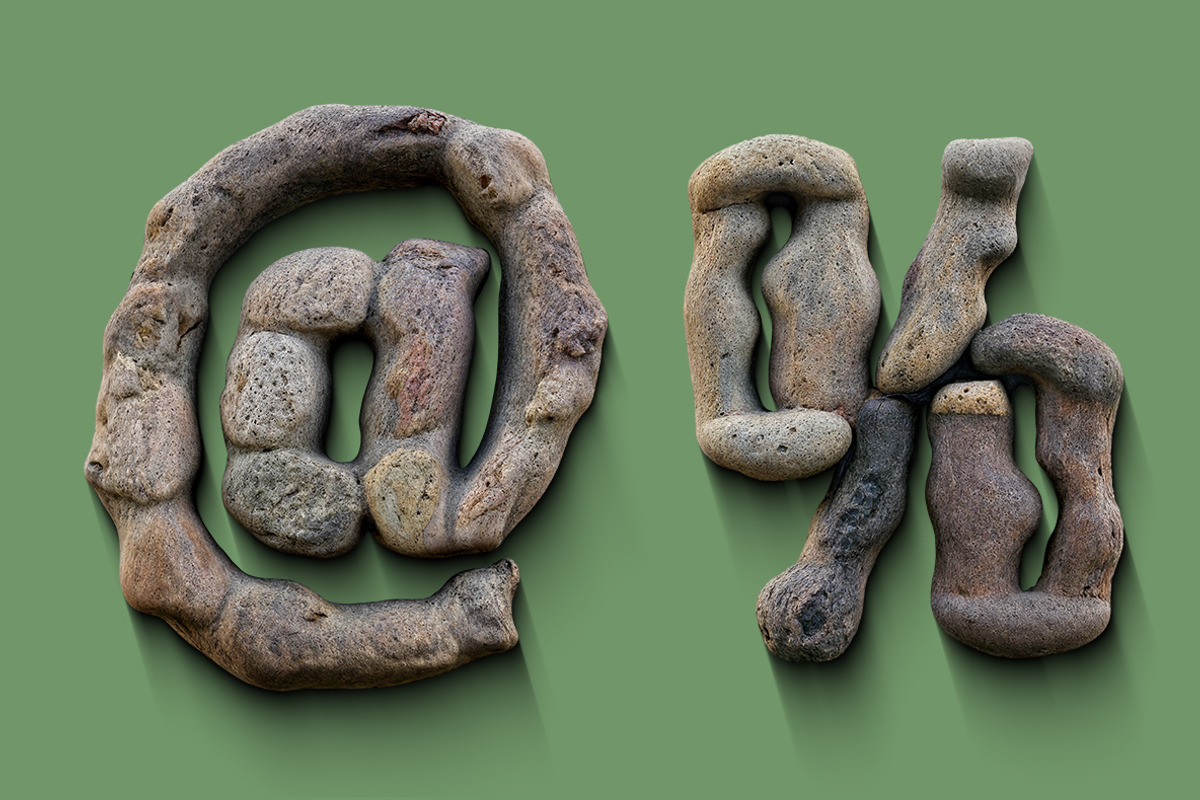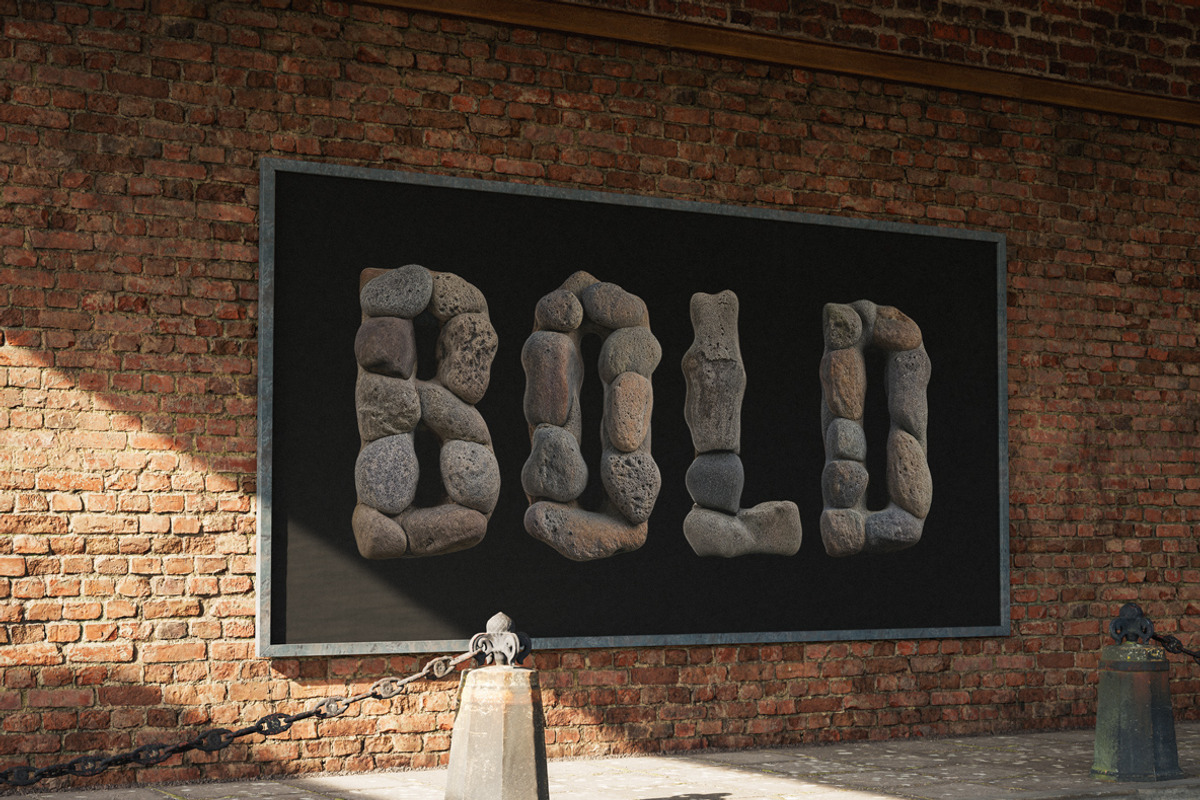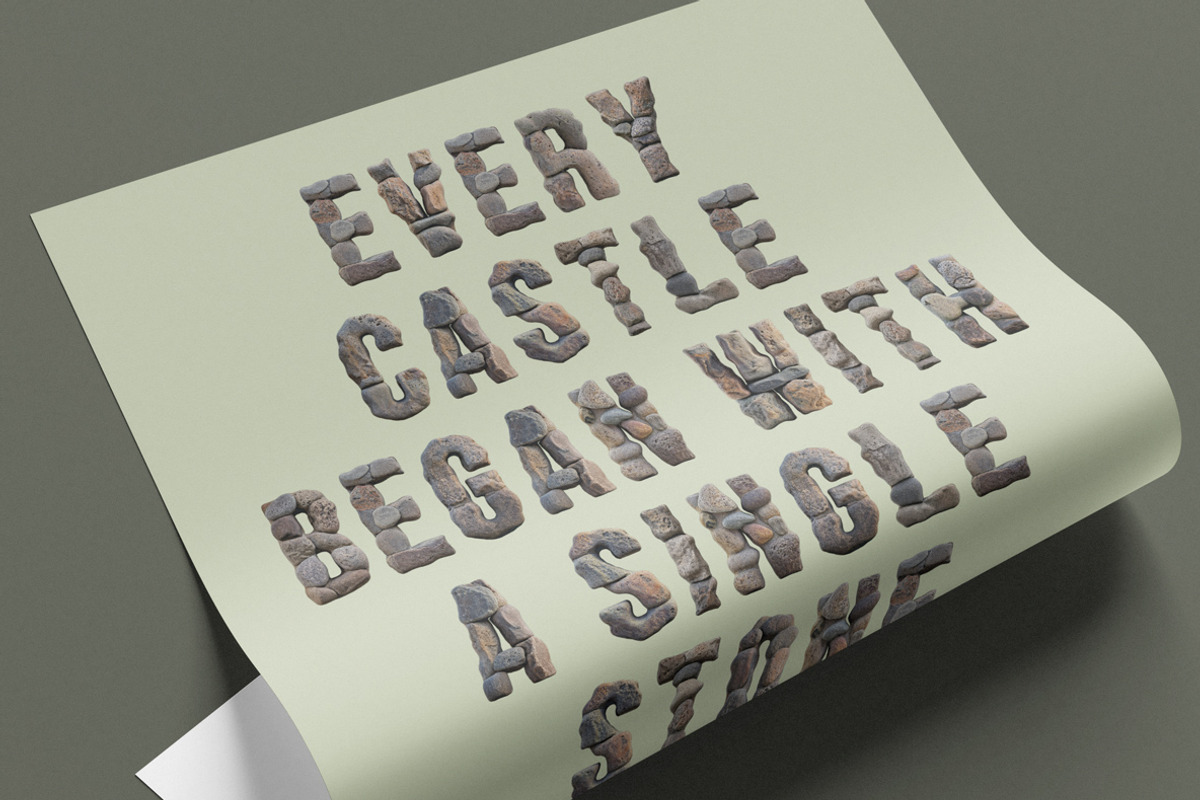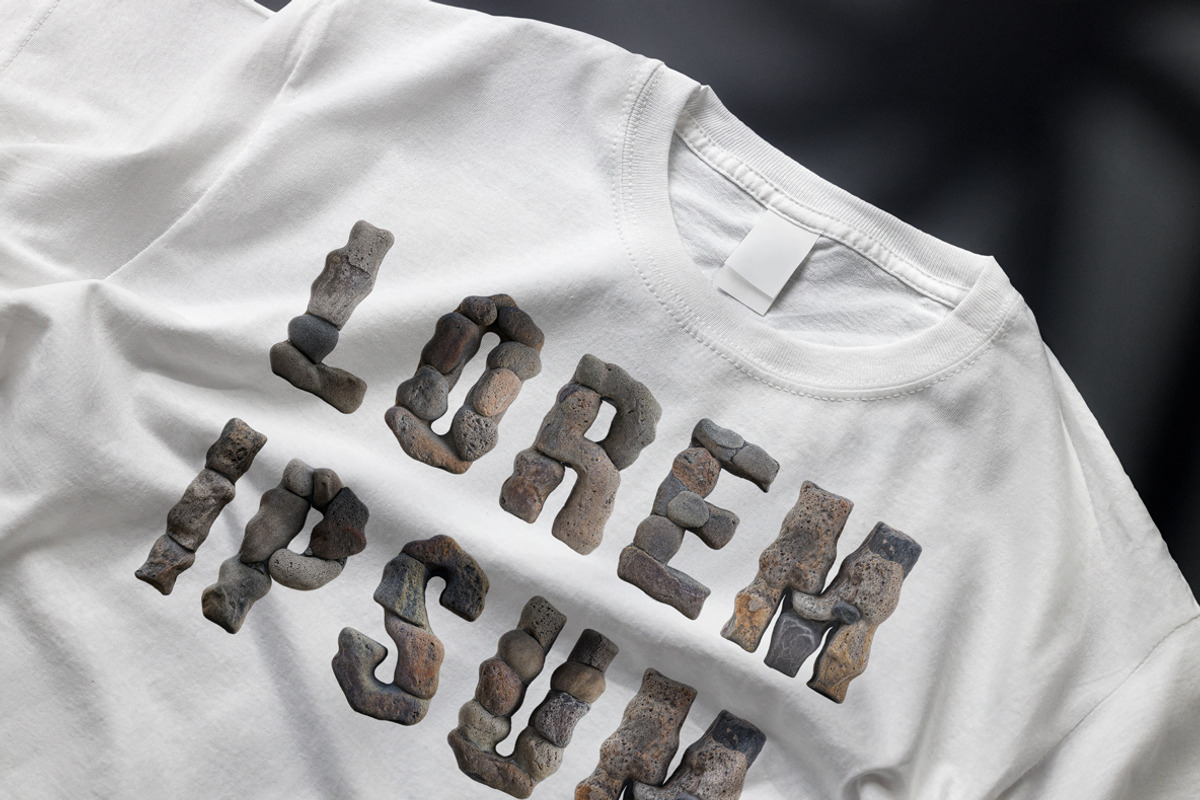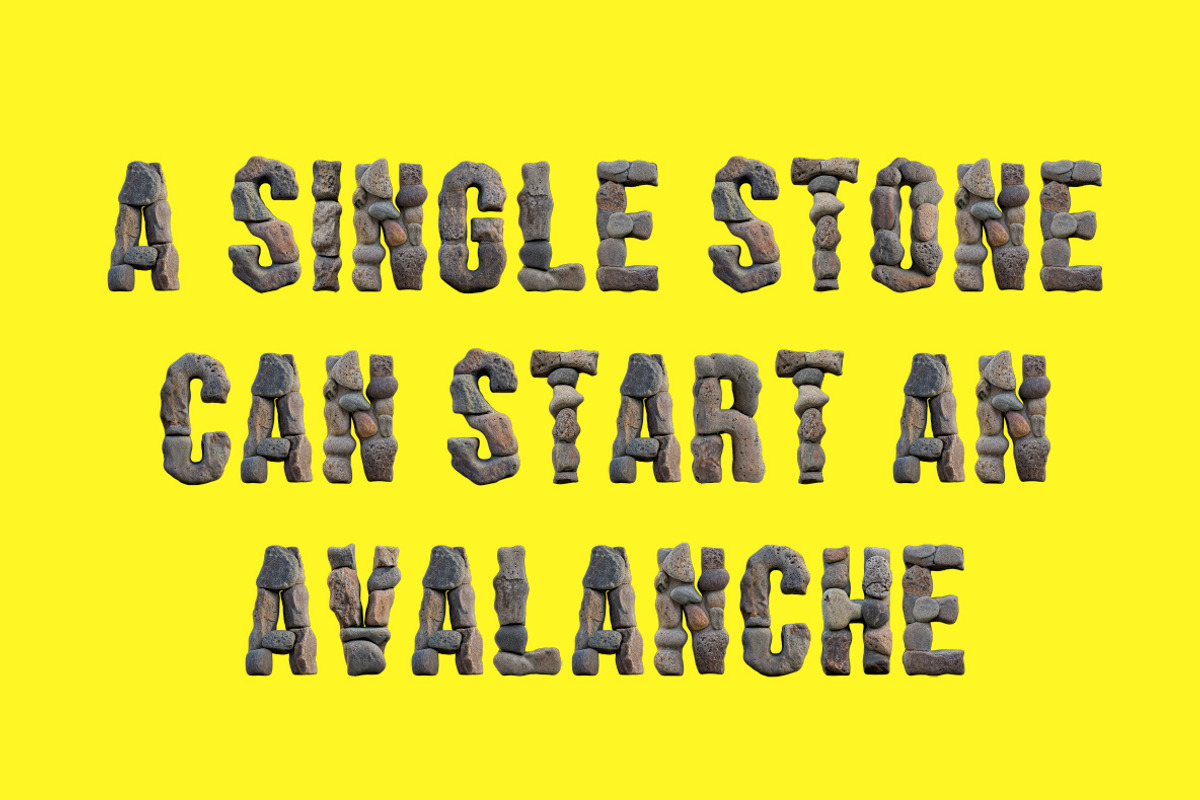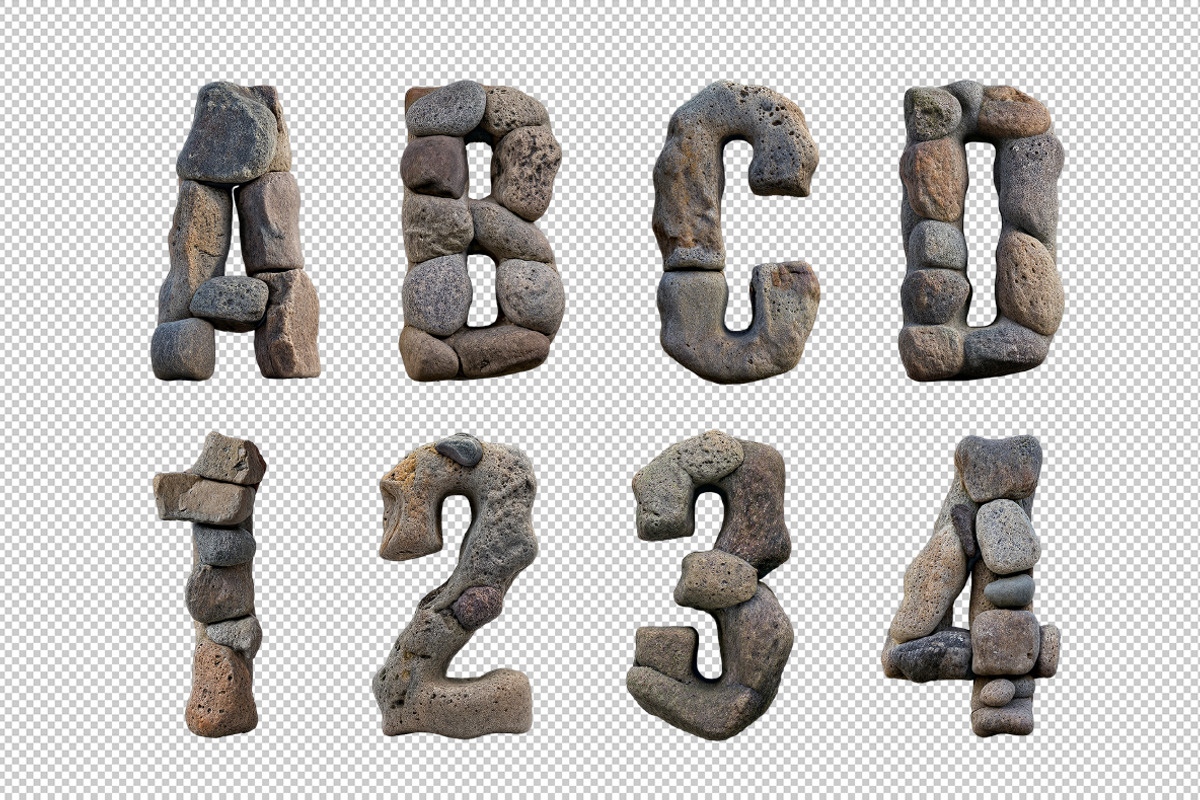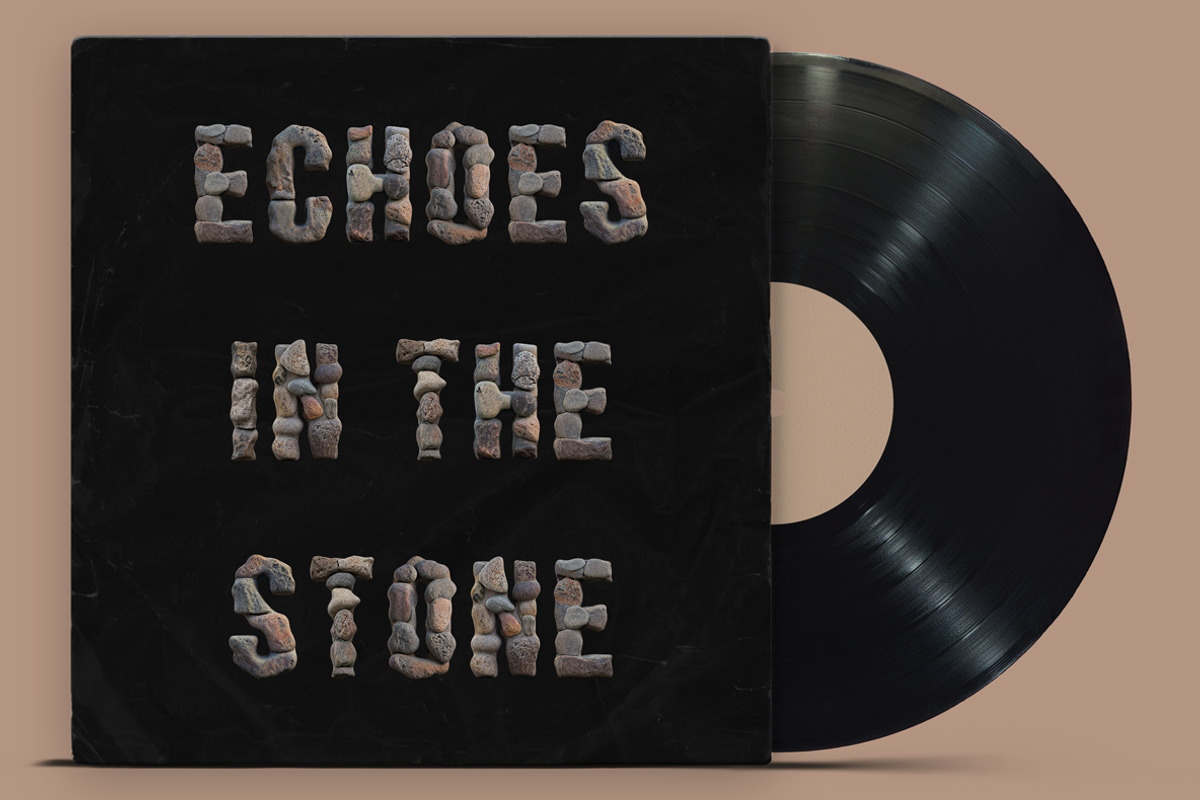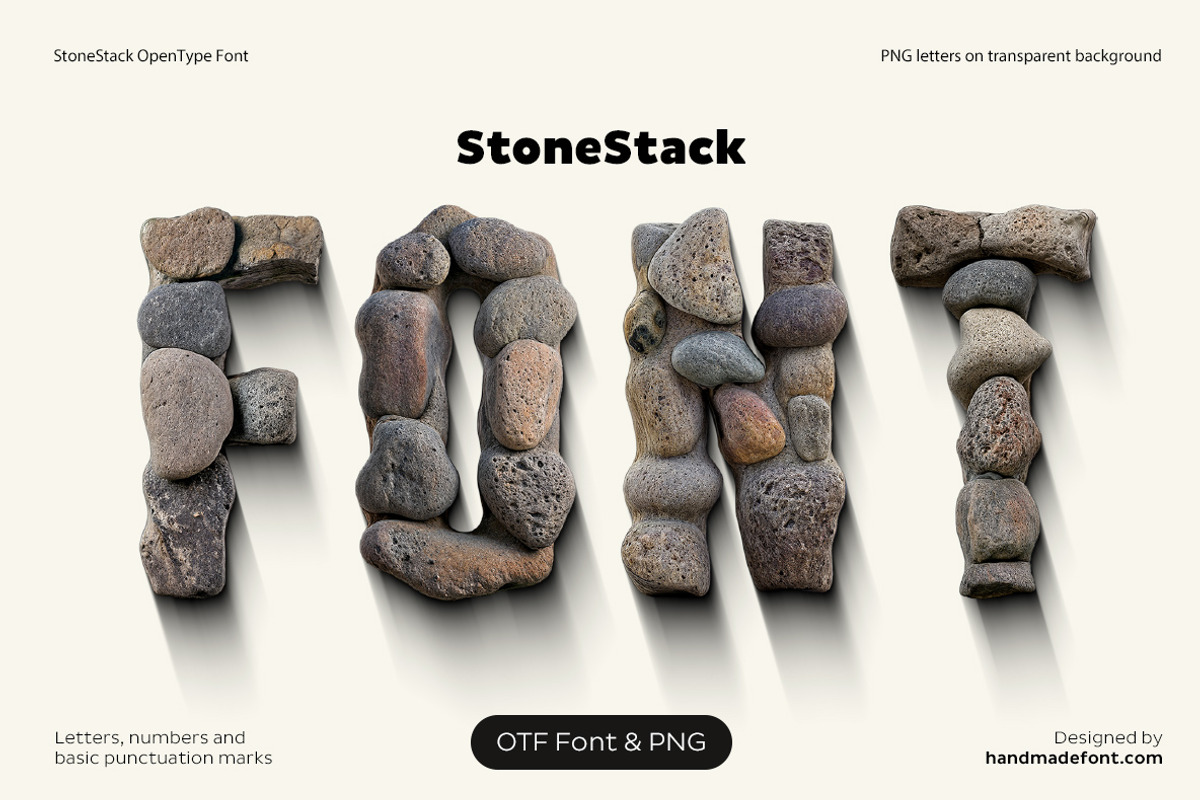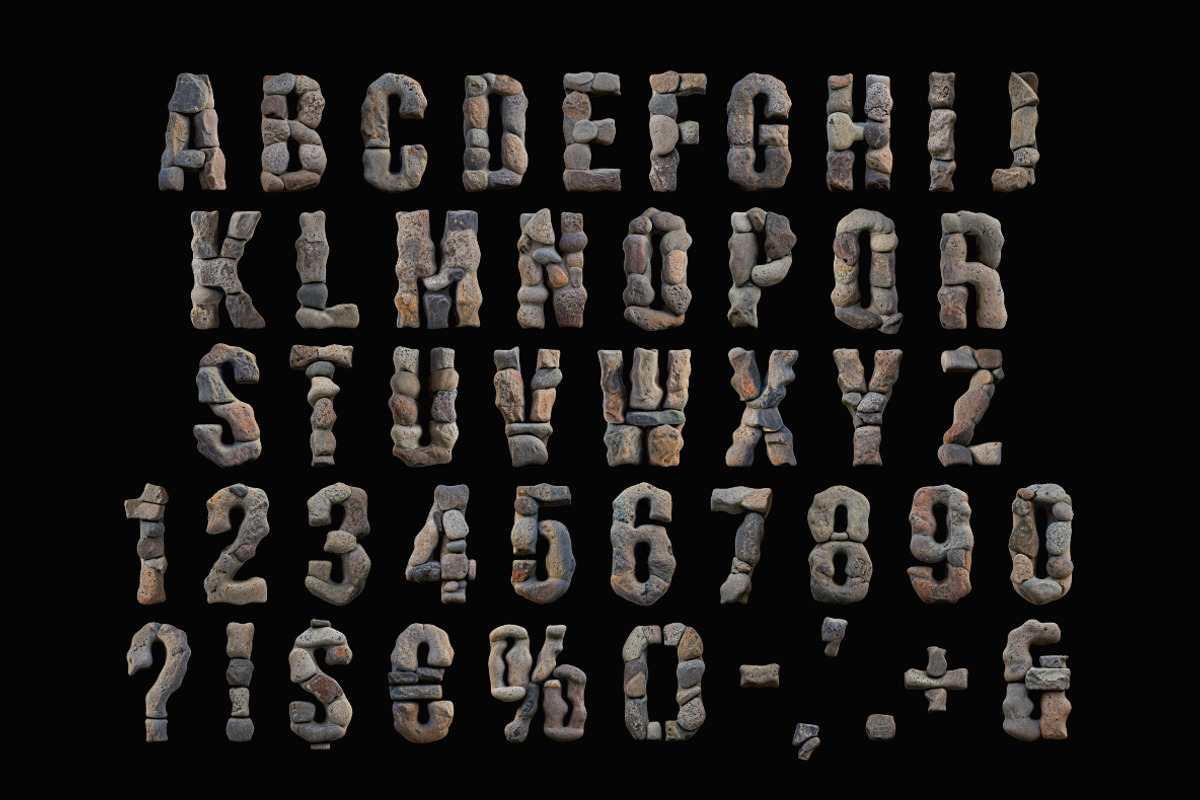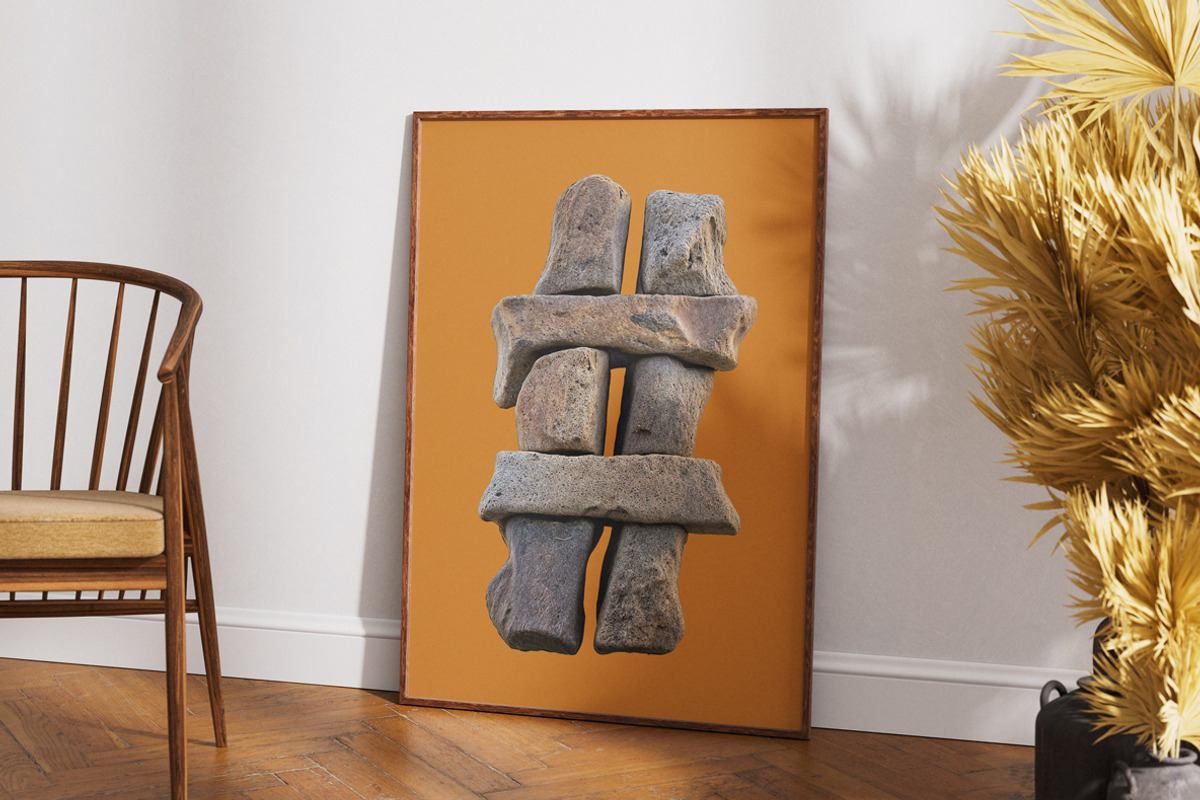
Stone Stack Font
Bold and unbreakable — the Stone Stack Font is where rock-solid creativity meets typography! Each letter is a gravity-defying masterpiece, carefully crafted from a stack of stones, balancing strength and style. Imagine an alphabet built by nature itself — boulders, pebbles, and rugged rocks piled high, forming a stone-inspired font that’s both earthy and elegant. The rough textures and organic shapes give it a raw, untamed charm, while the sturdy design stands firm like a mountain. Whether you're building a brand or crafting a rocky headline, this stone lettering will add a powerful punch. Typography just got a little... heavier!
A high definition OpenType Font. Contains uppercase characters, numerals and basic punctuation. (Draw height roughly 800 pixels). All letters and glyphs that comprises this font you can see on the preview.